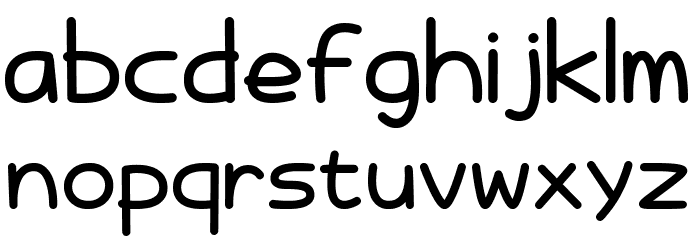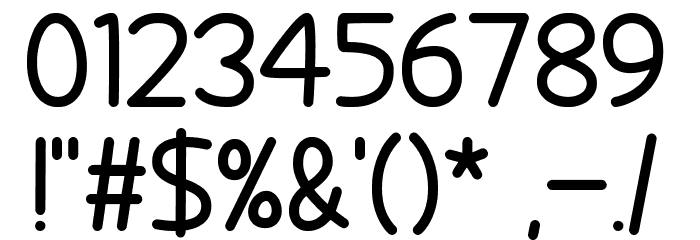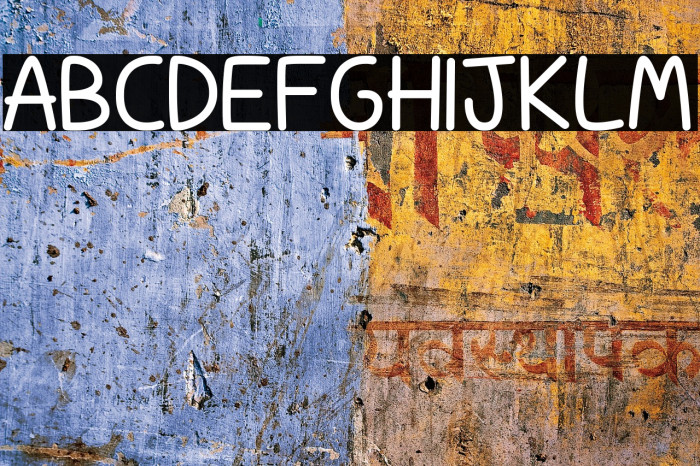
Mahalo, brother! Font
This font features a playful and casual handwritten style, characterized by its rounded and smooth letterforms. The strokes are consistent in width, giving it a uniform appearance that is easy on the eyes. The characters are slightly tilted, adding a dynamic and informal touch. The font maintains a friendly and approachable vibe, making it suitable for projects that require a personal and relaxed feel. Its legibility is high, even at smaller sizes, due to the clear distinction between each character. The spacing between letters is balanced, ensuring readability without appearing cramped or overly spaced.
A playful, handwritten font with rounded, smooth letterforms and a casual vibe.
- Proposed Projects: Ideal for children's books, greeting cards, casual branding, and social media graphics.
- Overall Style: Casual
- Use Case: Headlines, Logos, Informal Text